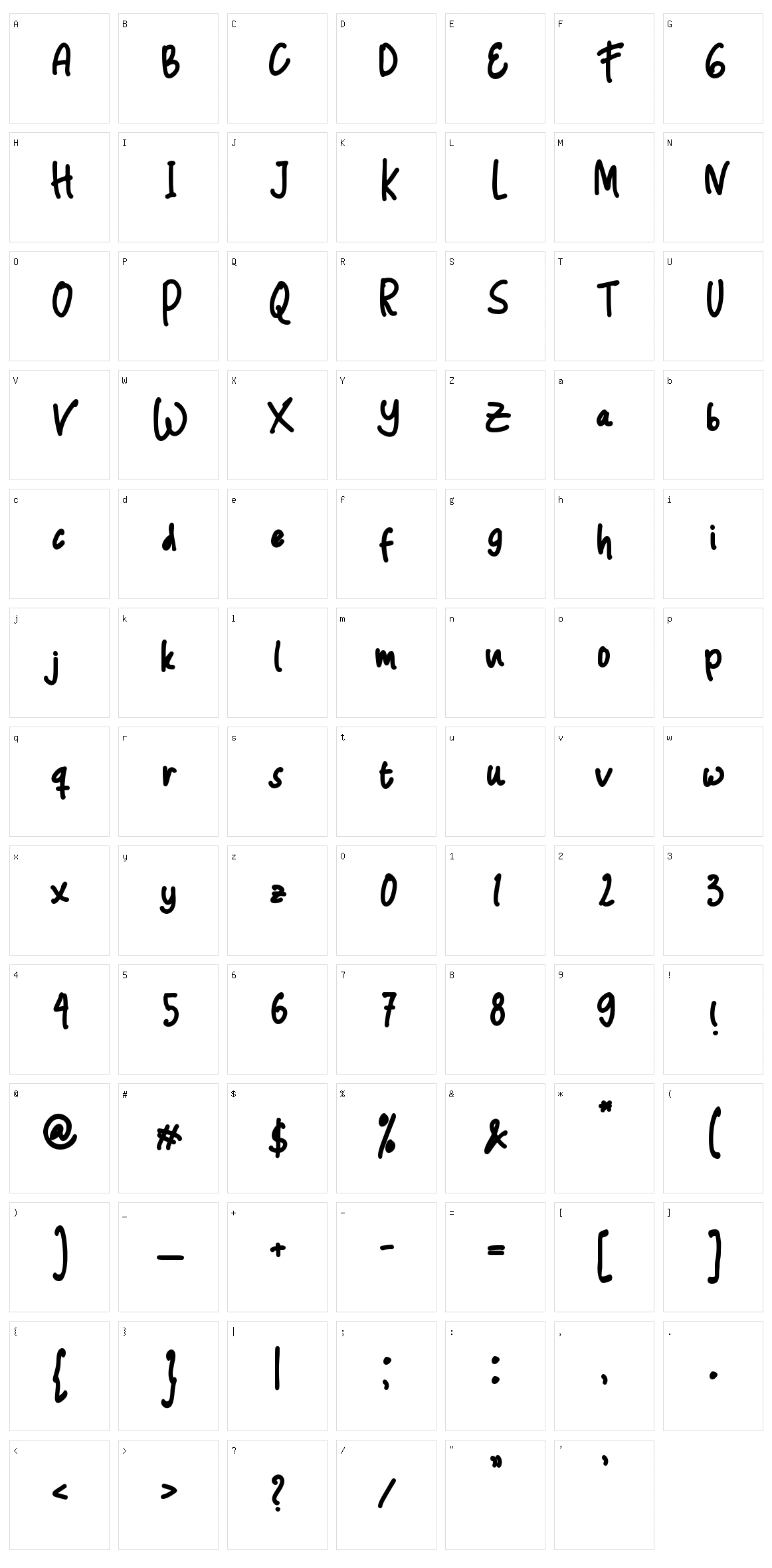
The free font Wallabys Junior is carefully designed by Colllab Studio, showcasing a thoughtful balance of creativity and usability and falls under the Script font style. When you download the ZIP file, it contains only 20.14 KB of font files, making it lightweight and quick to download. Please review the license details below to understand permitted usage and distribution rights. If license information is not available, we recommend using this font for personal projects only or contacting the author directly for commercial usage permissions.